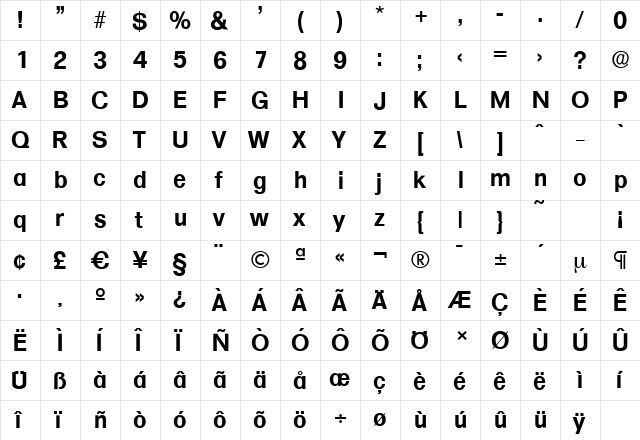
FormulaSerial Bold Font Preview
FormulaSerial Bold
FormulaSerial Bold Font Details
Design Context for FormulaSerial Typeface
FormulaSerial offers clean, dependable letterforms without strong stylistic allegiance, making it a practical choice for designers who need flexibility. Its bold stroke weight gives it real presence on the page.